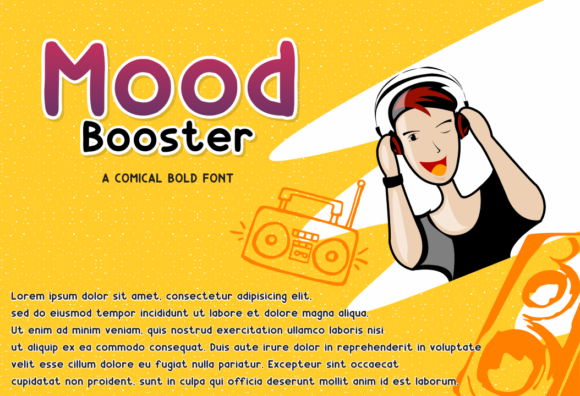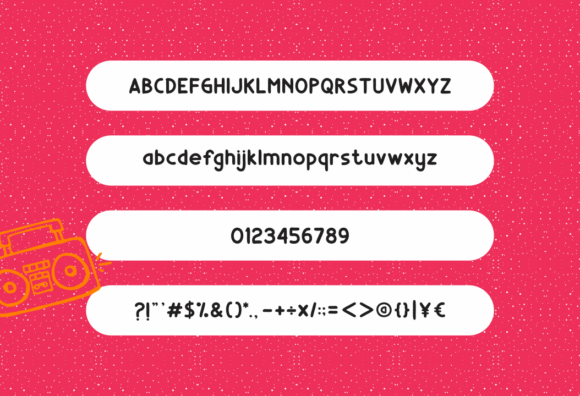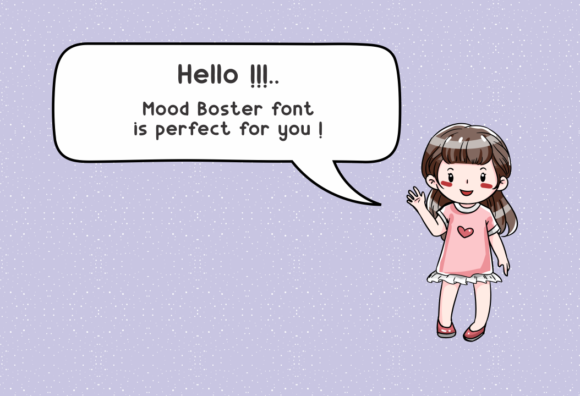
Mood Boster Font
Mood Boster is a fun and friendly handwritten font. Smooth and versatile, this font suits various kids and school projects. Add to your favorite creative ideas and see how this font make them come alive!